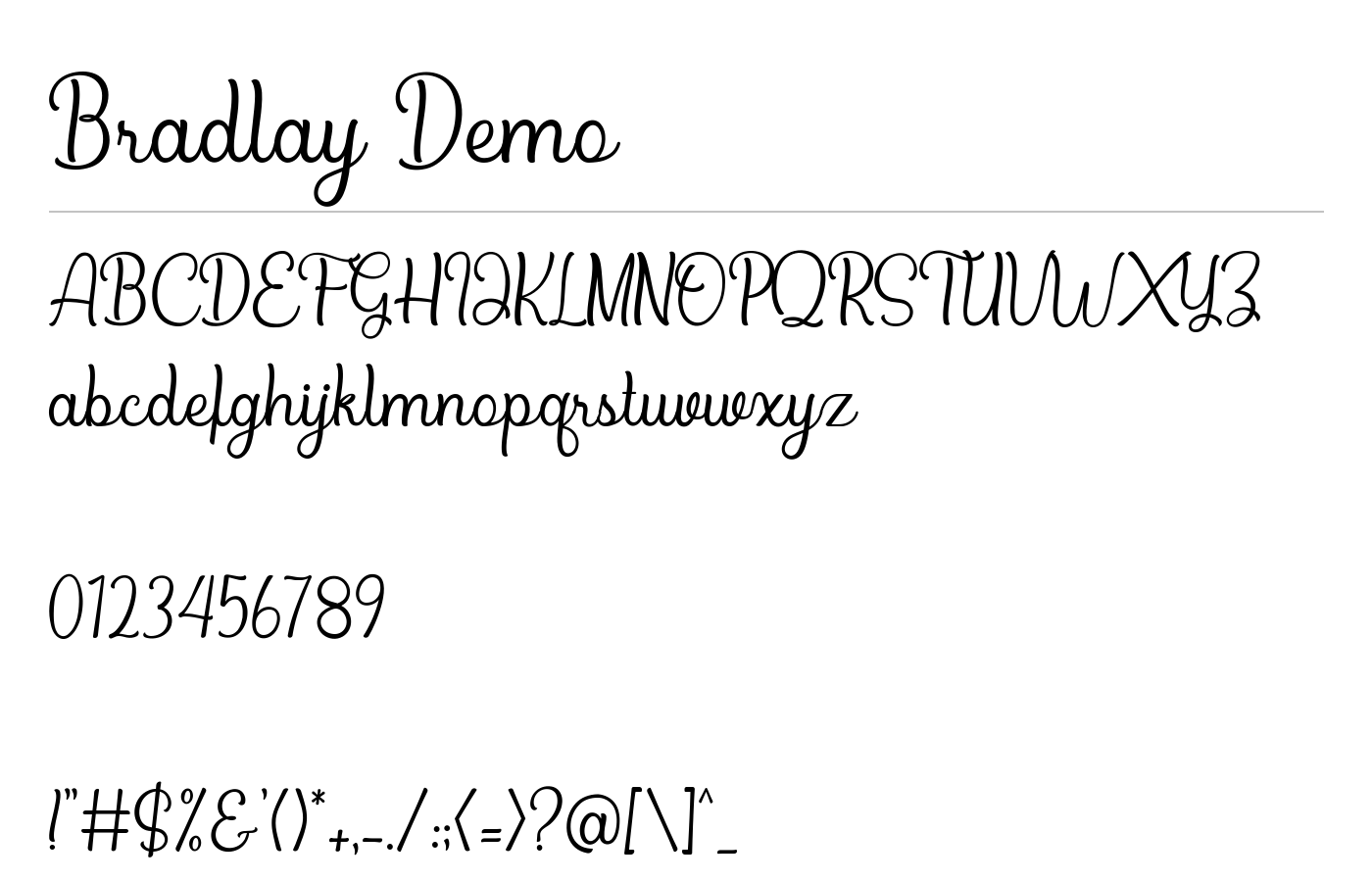
Bradlay Demo is a charming, slender script font with a handwritten feel, featuring elegant, flowing strokes and a light weight that gives it a delicate and airy appearance. Its smooth, rounded letterforms and consistent stroke contrast make it perfect for adding a personal, friendly touch to creative projects like invitations, branding, and stylish headlines. This font brings a sophisticated yet approachable vibe, ideal for designs that want to convey warmth and elegance with a modern twist.
Bradlay Demo Font